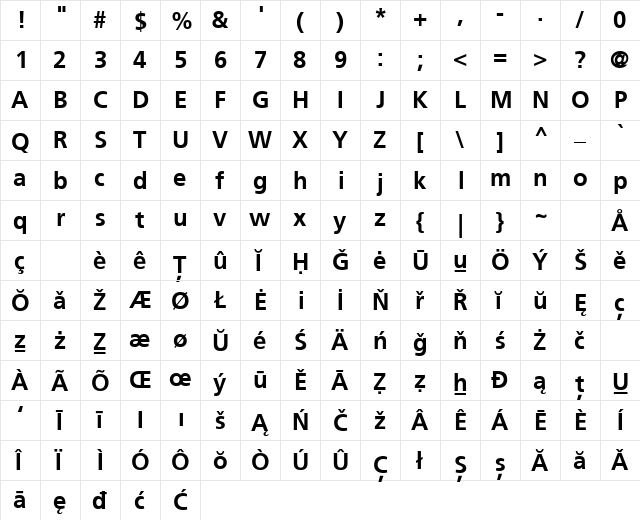
Frutiger SBIN Bd v.1 Bold
Design Context for Frutiger SBIN Bd v.1 Typeface
Frutiger SBIN Bd v.1 is a composed and adaptable typeface that performs quietly and consistently across a wide range of design contexts. The heavy weight commands attention and anchors typographic hierarchies.